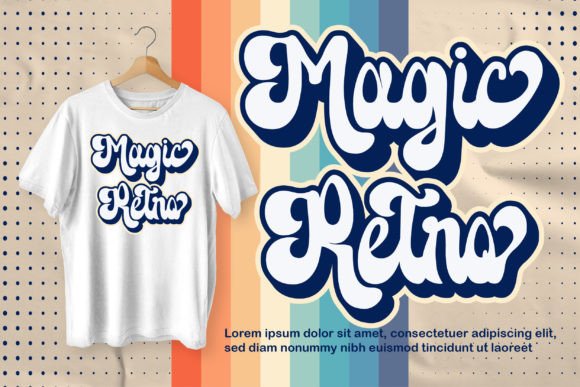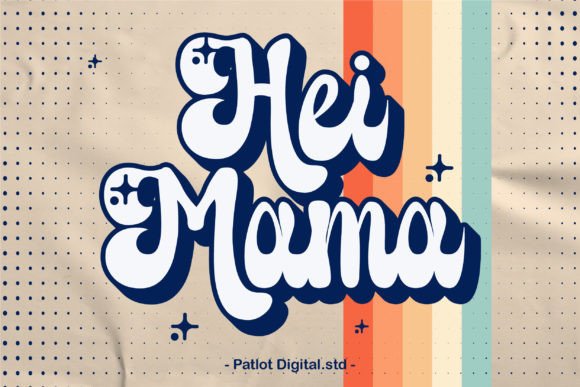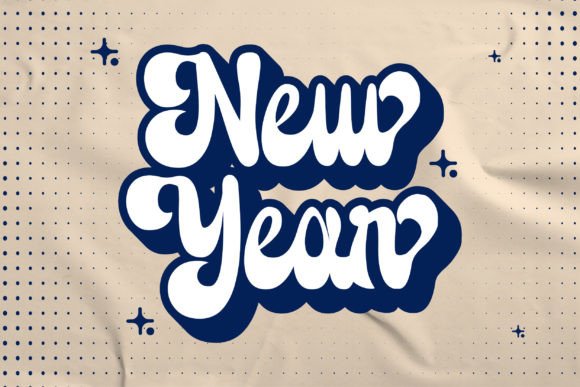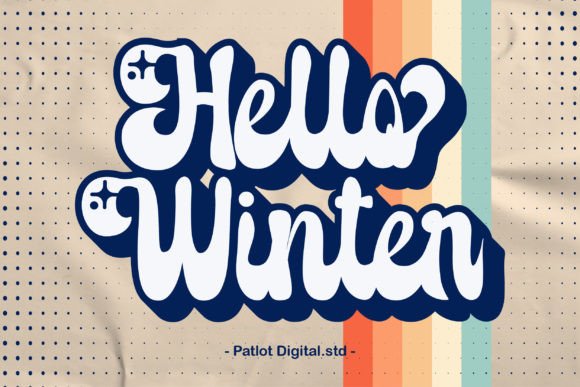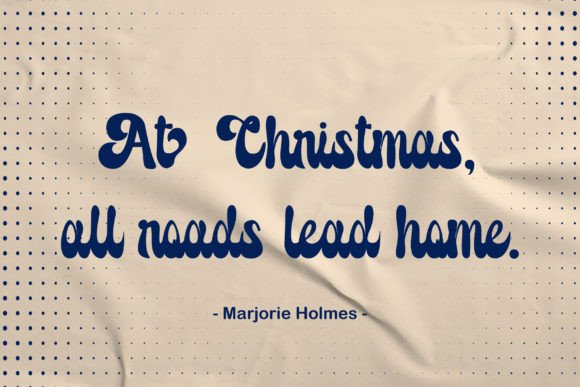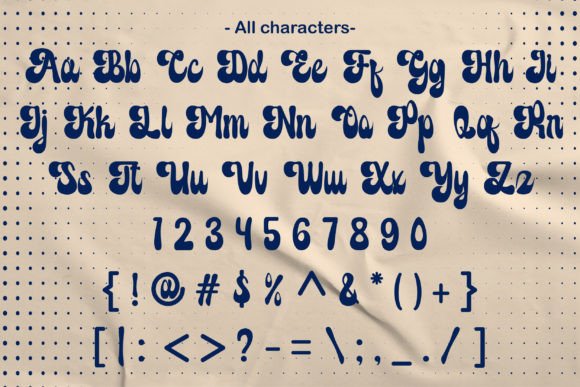
The Magic of Christmas Font: A Designer’s Best Friend
It’s the most wonderful time of the year – and I’m not just talking about the holiday season! As a designer, I’ve had my fair share of stressful moments, but one of the most relatable ones is trying to find the perfect font for a project. I recall working on a Christmas-themed wedding invitation for a client, and no matter how hard I searched, I couldn’t find a font that captured the softness and warmth I was looking for. That’s when I stumbled upon Christmas Font – a retro handwritten font that has since become a staple in my font library.
An Honest Review of Christmas Font
So, what makes Christmas Font so special? Let’s dive into the good stuff! 😊
- ✨ Soft and whimsical: This font is perfect for designs that require a touch of warmth and playfulness.
- 🎉 Versatile: Use it for wedding invitations, cards, or any other design project that requires a personal touch.
Now, let’s talk about a few quirks ⚠️:
- 🤔 Limited use cases for bold text: While the font is beautiful in its regular form, it may not be the best choice for bold text or headings.
- ⚠️ Some characters may require manual kerning: As with any font, you may need to adjust the kerning for certain character combinations to achieve optimal results.
The Story Behind Christmas Font
Christmas Font was designed with the holiday season in mind. The creator wanted to craft a font that would capture the warmth and magic of Christmas, while also being versatile enough for various design projects. The result is a beautiful, retro handwritten font that’s perfect for adding a personal touch to your designs.
| Font Name | Christmas Font |
| Author | Patlot Digital.Studio |
| What is Christmas Font? | Christmas Font is a retro handwritten font designed specifically for holiday-themed designs. |